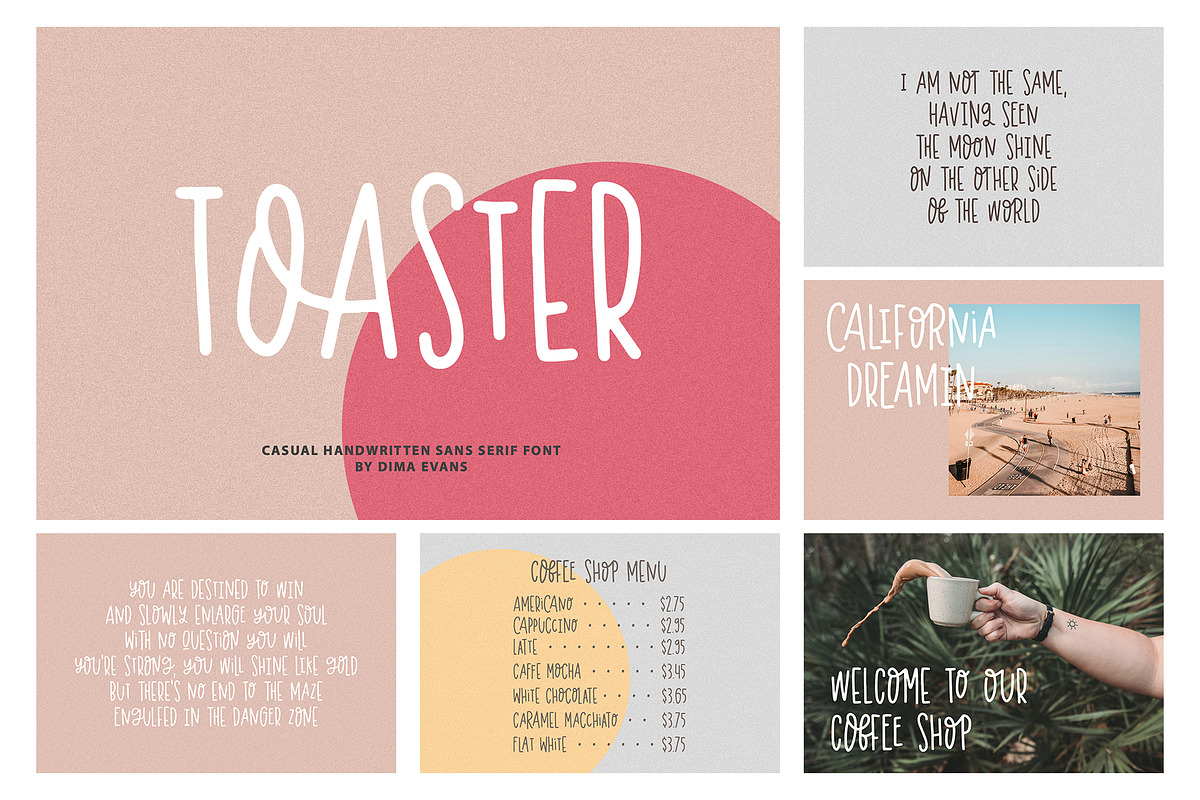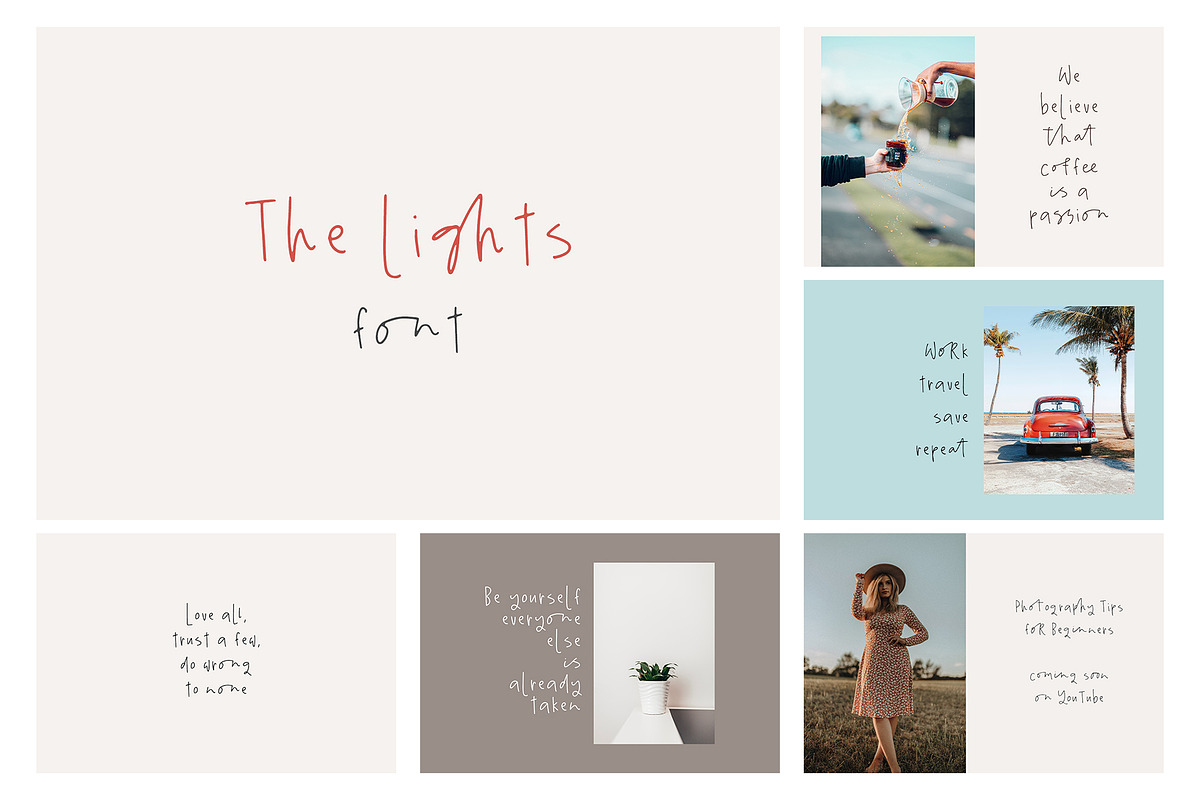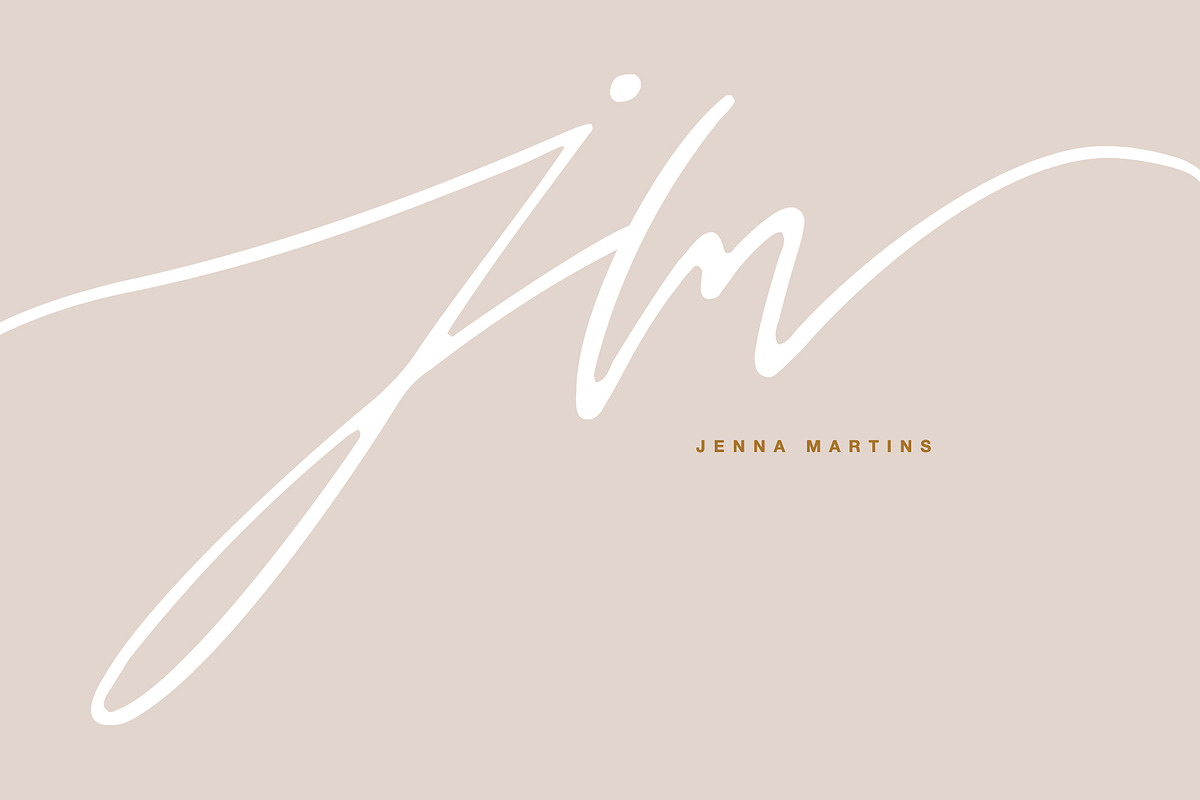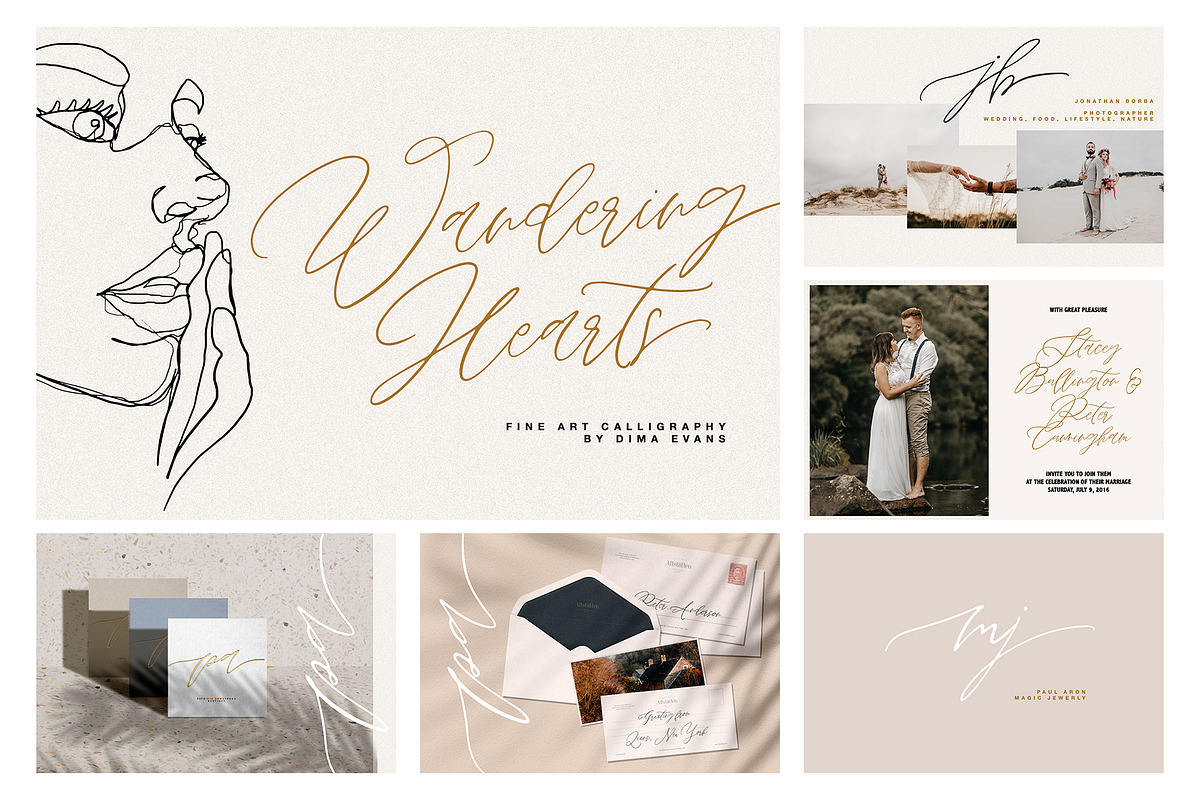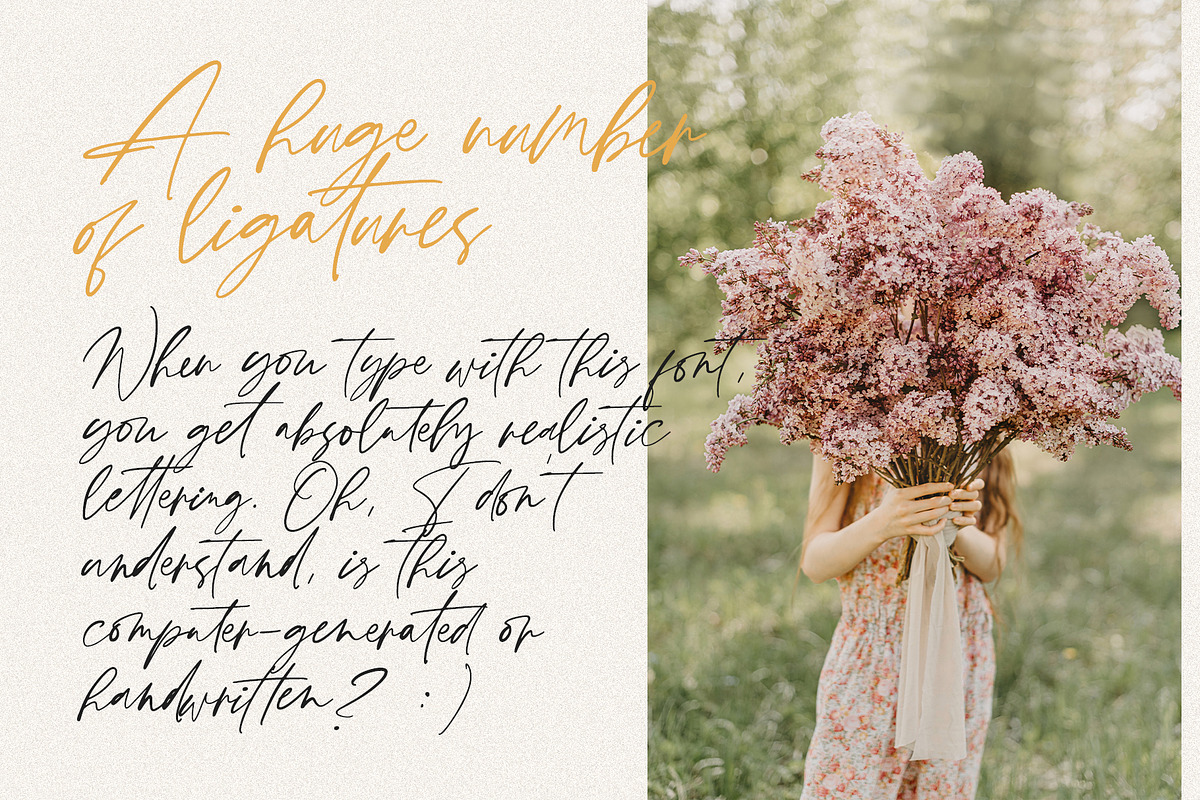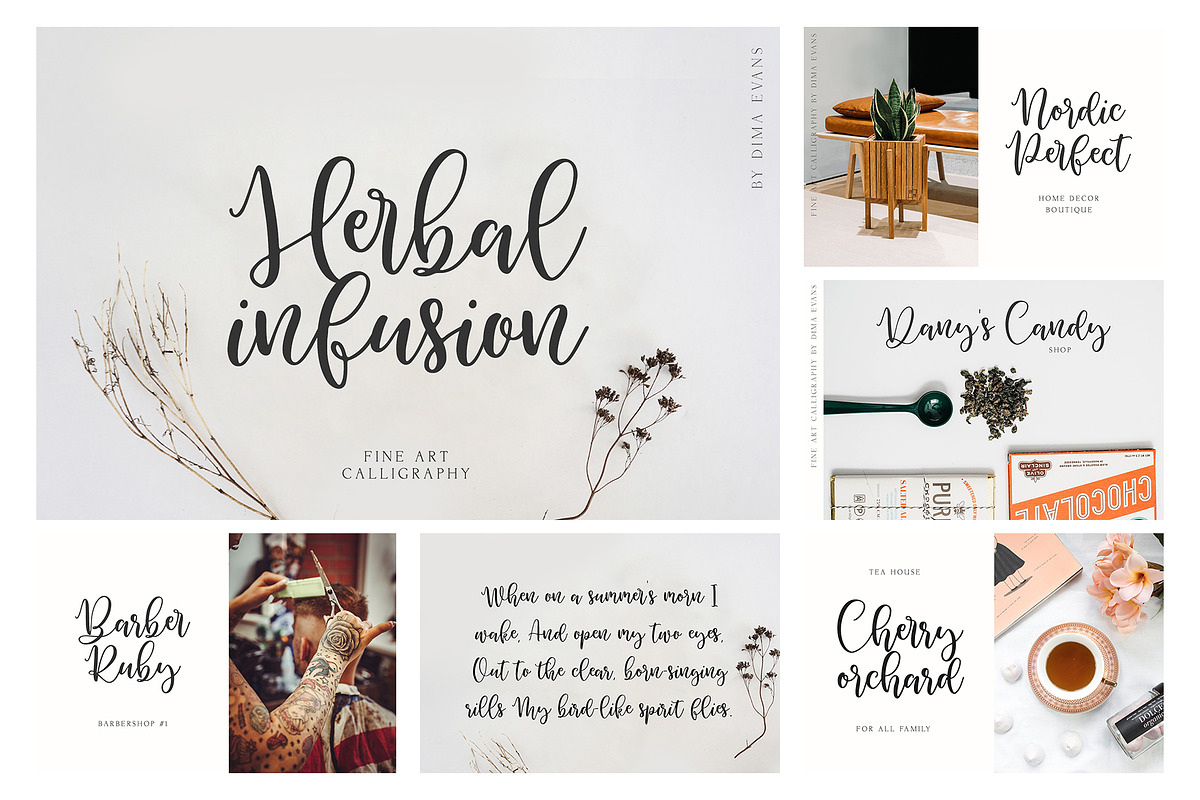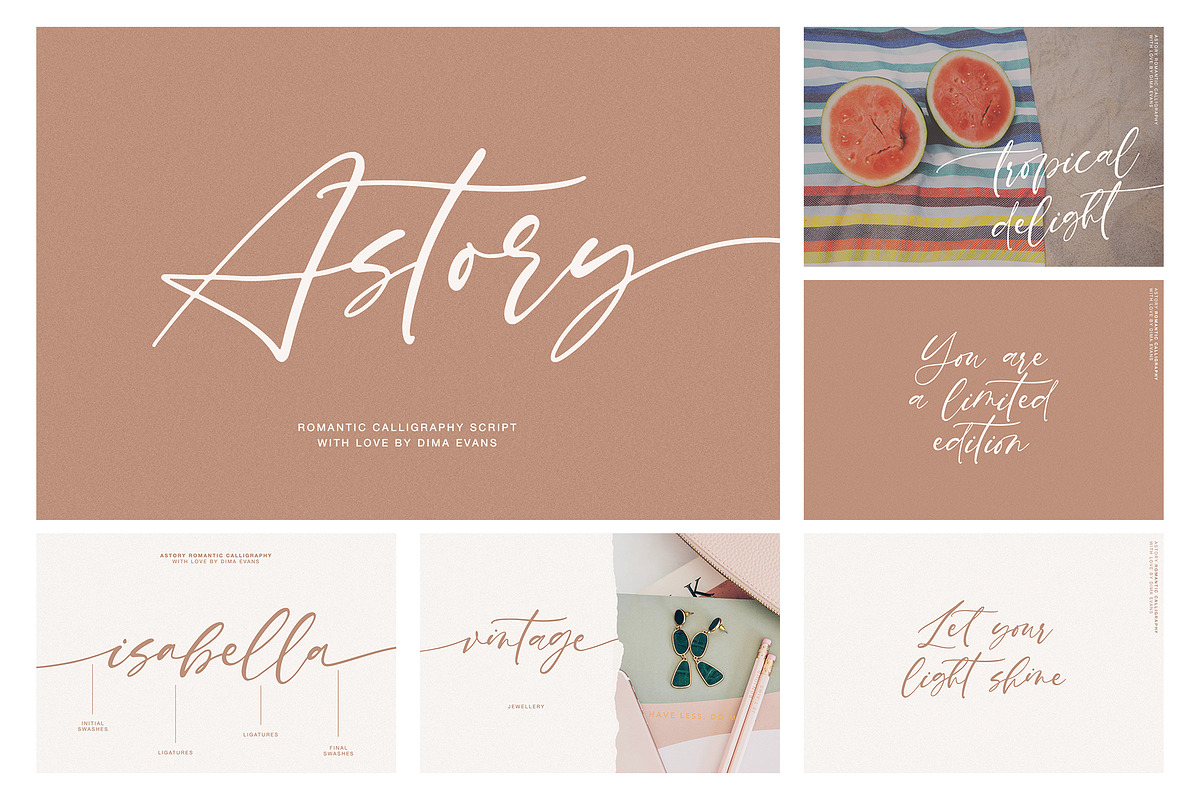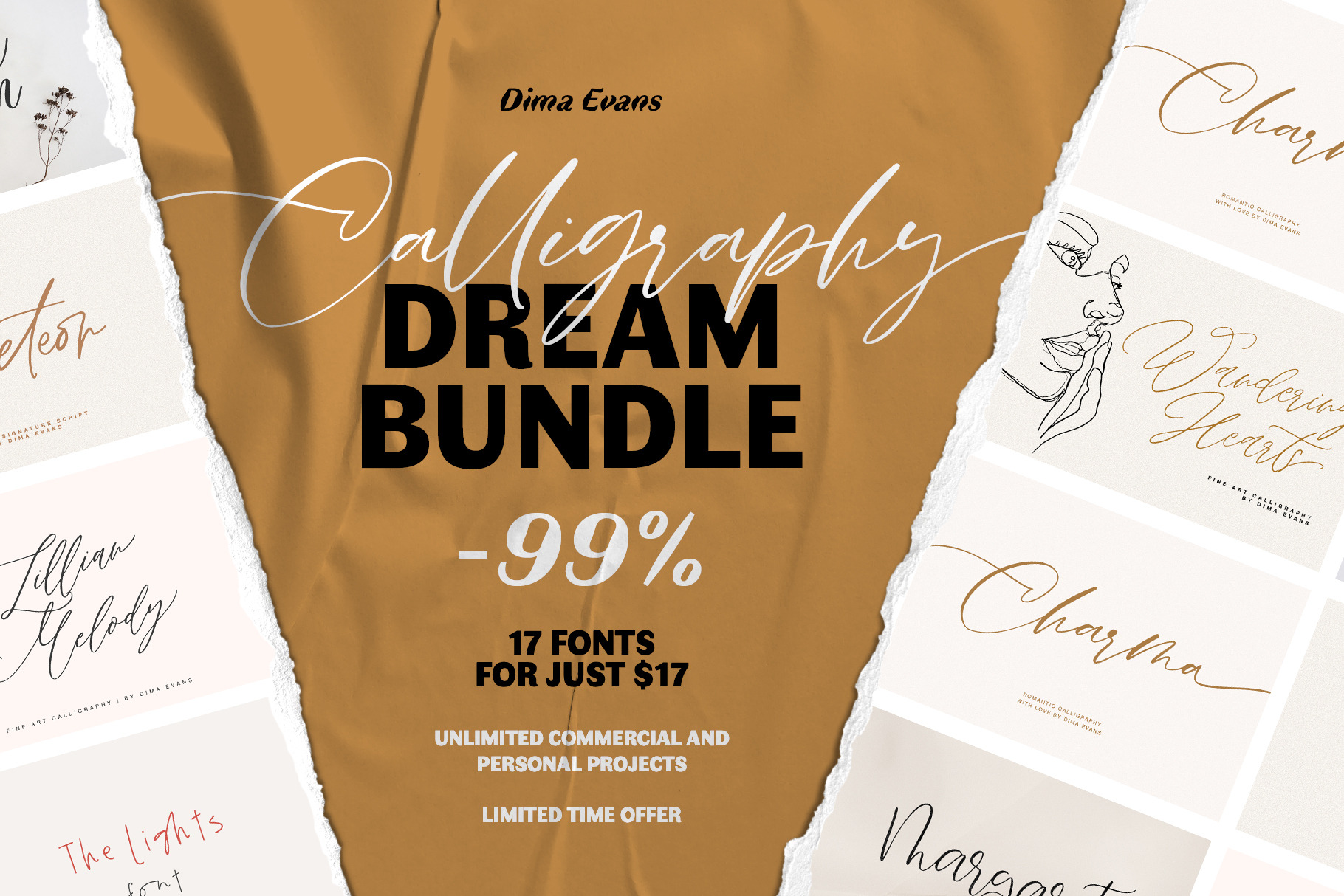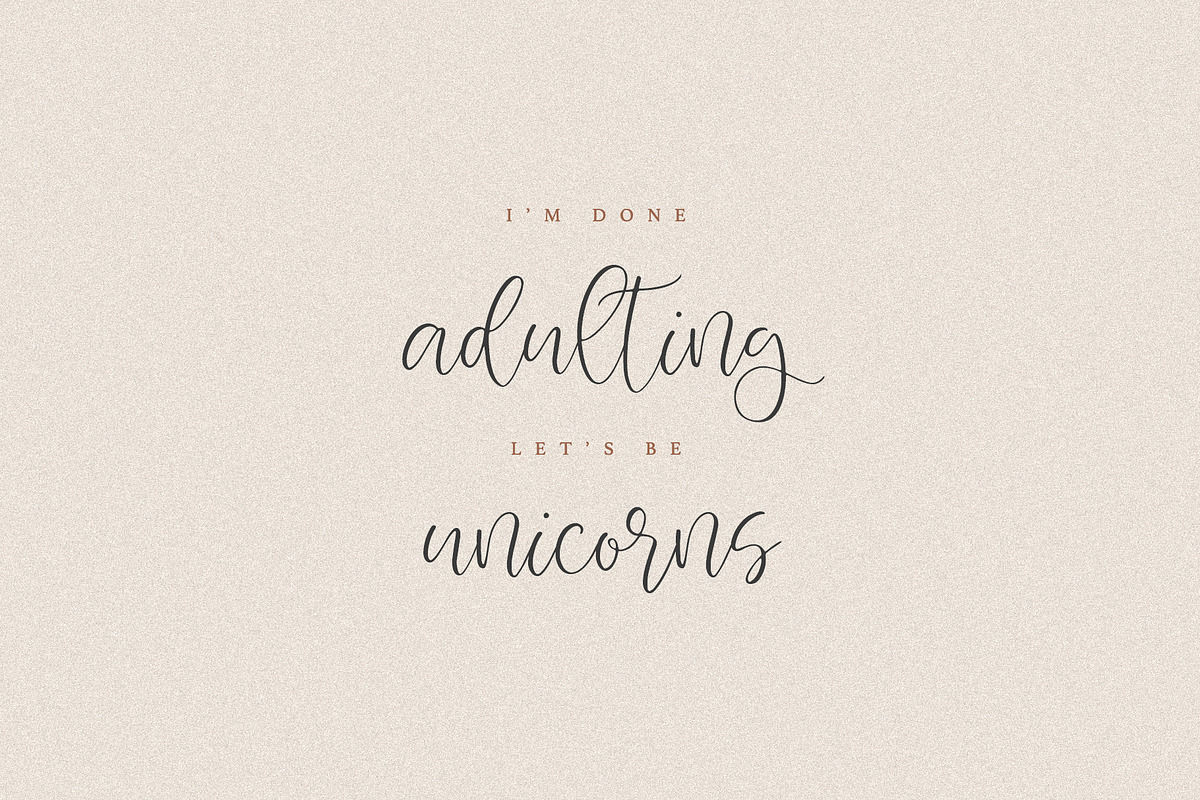
Calligraphers BUNDLE
In this amazing bundle I've put together 17 of the coolest new calligraphy fonts in 10 Font Families аnd made a 90% discount
Is very suitable for greeting cards, signature logos, holiday invitations, wedding invites, stationery, logos, inspirational quotes, posters, blog headers, packaging, custom prints and more!
WHAT IS INCLUDED:
- Astory // Romantic Script - https://crmrkt.com/NdMzN8
- Charma // Romantic Script - https://crmrkt.com/2rpRb8
- Apricot Delight | Romantic Script - https://crmrkt.com/6DVyRm
- Margaret Calligraphy - https://crmrkt.com/Gr19pb
- THE LIGHTS - https://crmrkt.com/GrbdVb
- Toaster Sans - https://crmrkt.com/7KVpDj
- Meteor Script - https://crmrkt.com/4wbg8m
- Wandering Hearts Script - https://crmrkt.com/0xwqgw
- Lillian Melody - https://crmrkt.com/pOmlPV
- Herbal Infusion - https://crmrkt.com/mBblPb